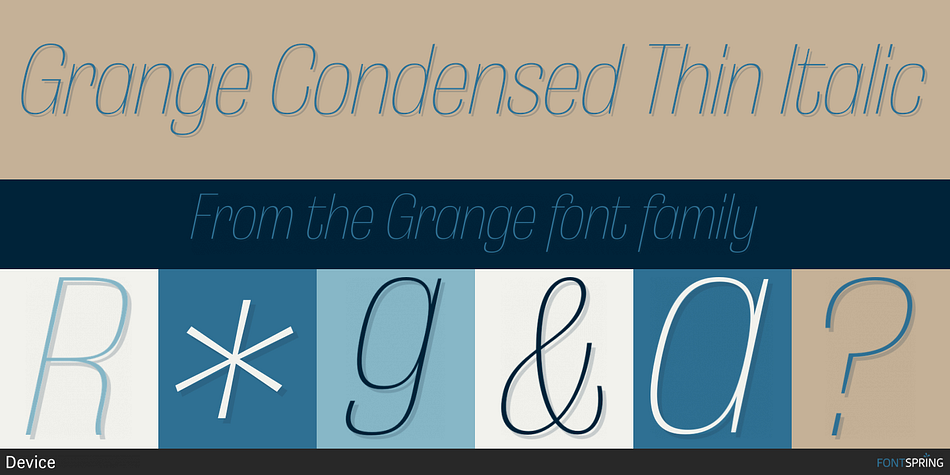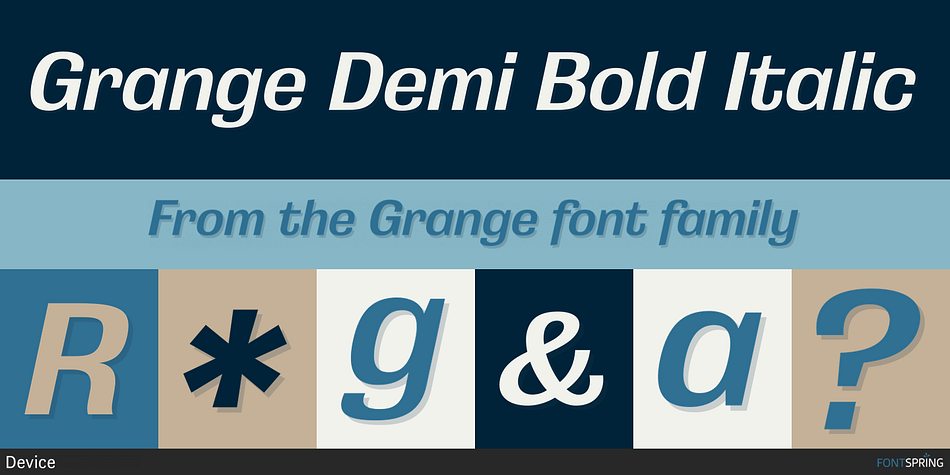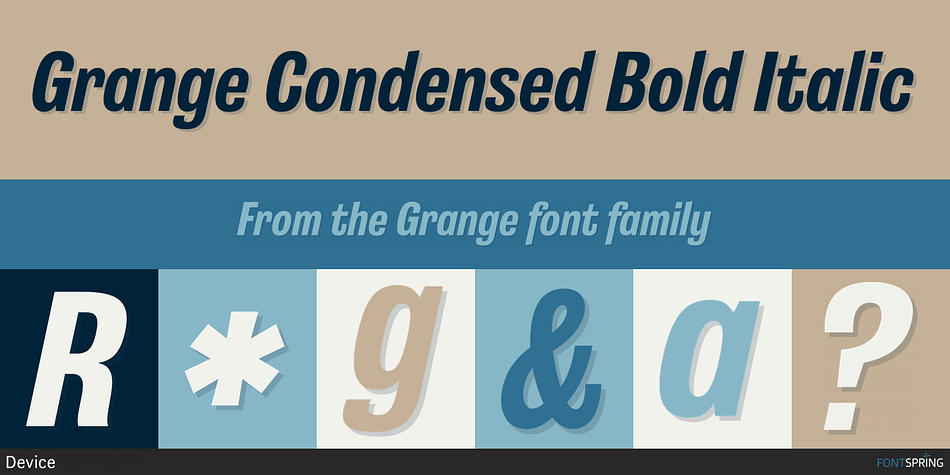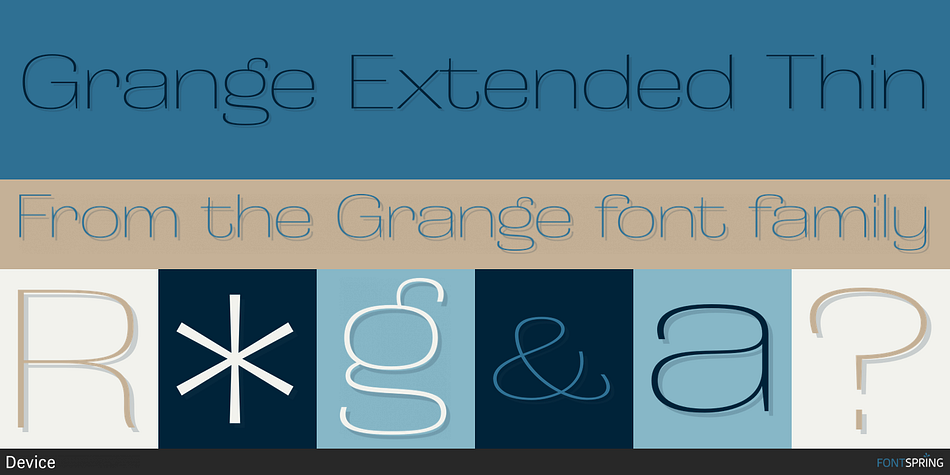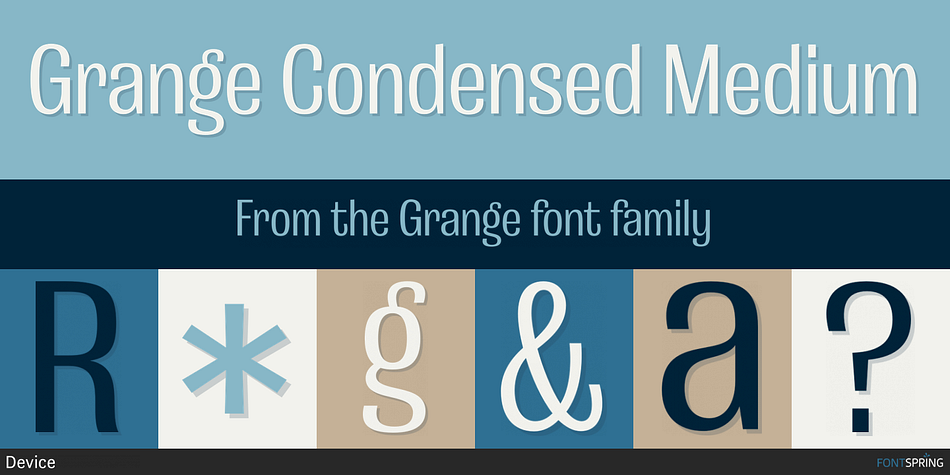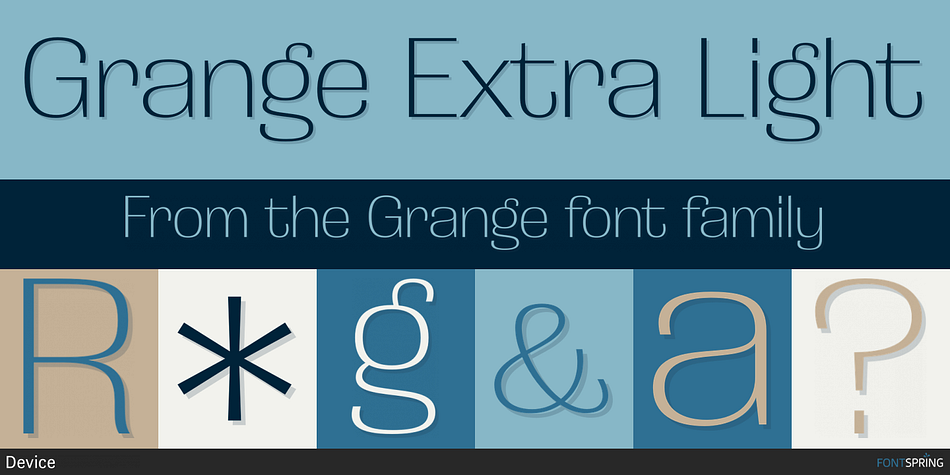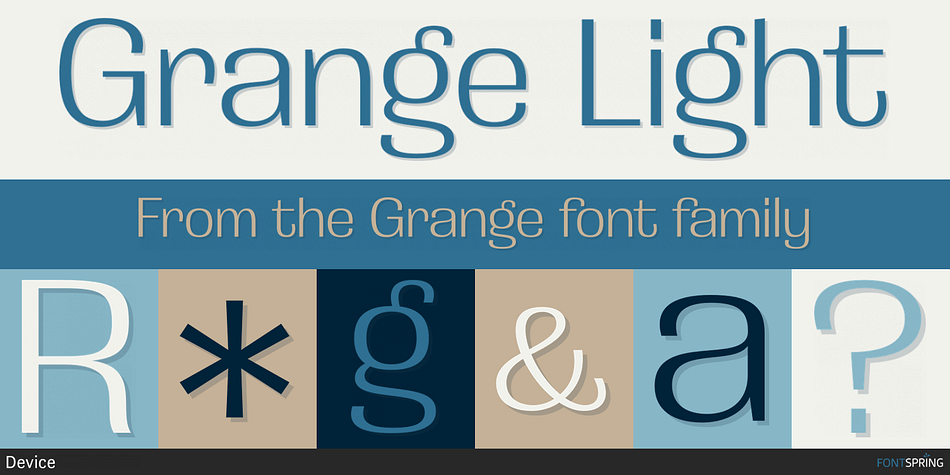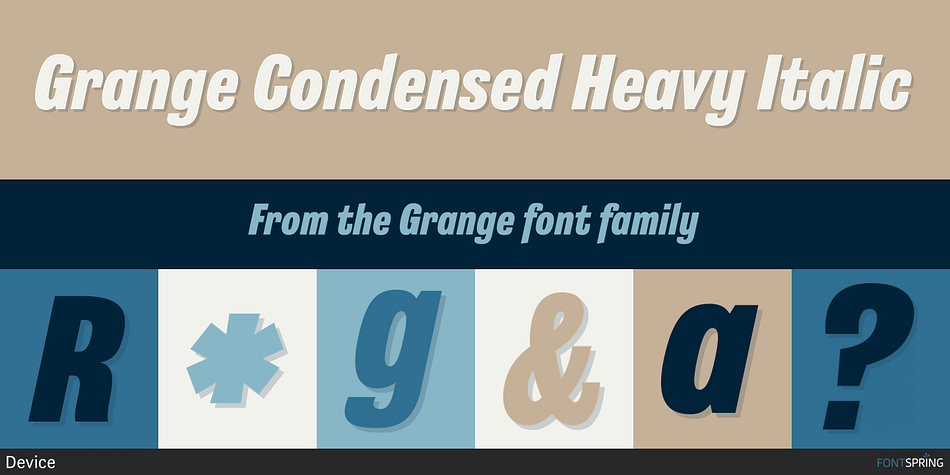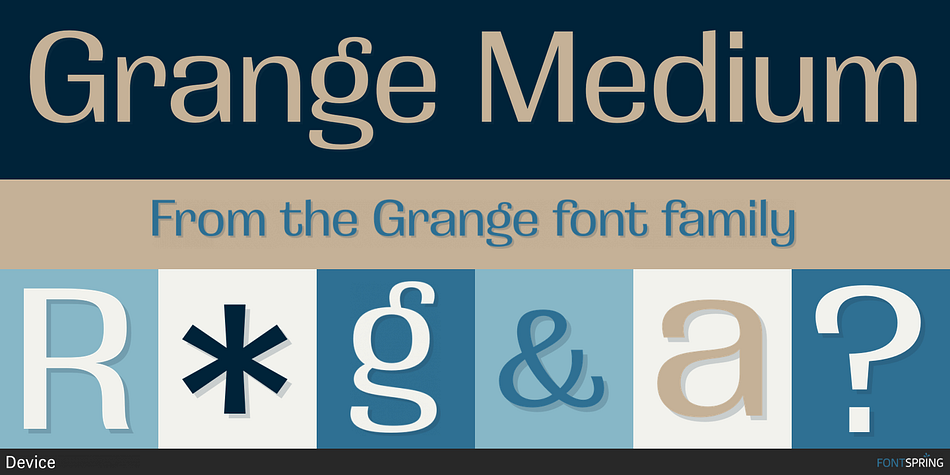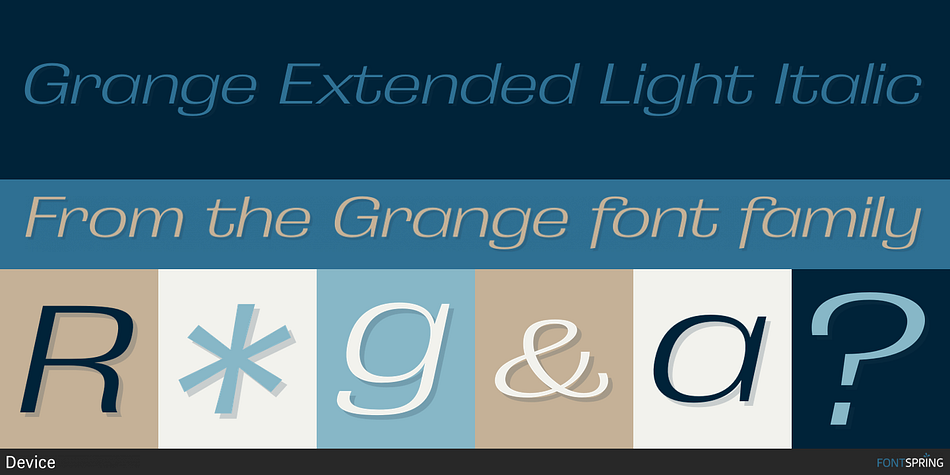
Designed by Rian Hughes, Grange is a sans serif font family. This typeface has forty-two styles and was published by Device.
The Device interpretation of the classic “Grot” thick/thin sans style. Unlike the traditional models on which it is based, Grange takes a rational, consistent approach across wide range of weights and widths for contemporary use.
The font includes alternative curved and straighter versions of key characters, most obviously the lower-case ‘g’ and capital ‘R’, allowing the font to take on either a sharper or warmer, more playful appearance. These can be toggled on or off using the ‘Alts’ feature in Illustrator, or ‘Stylistc Sets’ in Indesign. Contains proportional, lining and tabular numerals. Perfect for both headline and text.